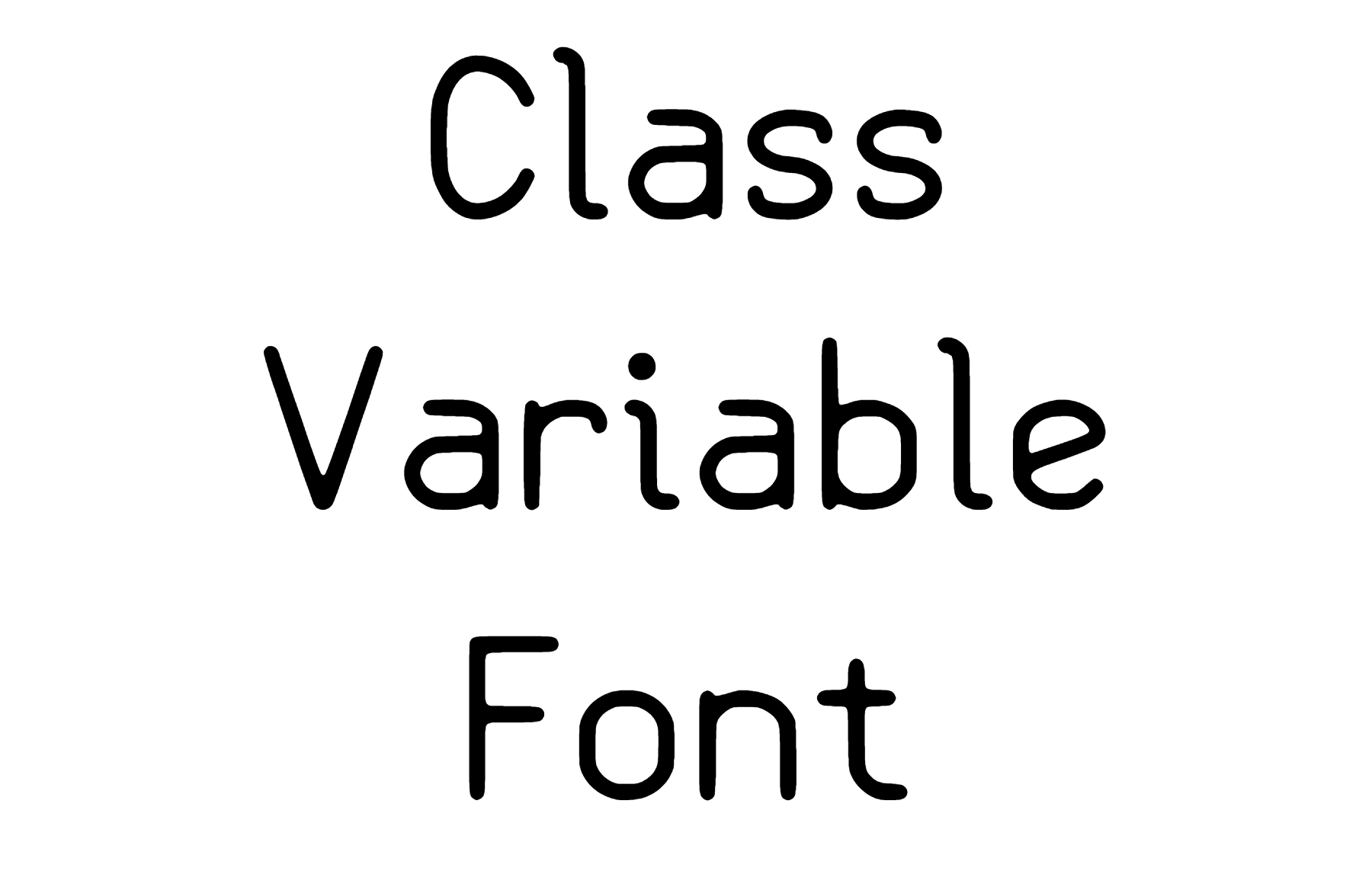
Class Variable
Class Variable is a handwritten font (2020). The letters have the small wobbles and personality of real handwriting, so your text feels warm instead of printed. The free download includes two styles, and you can try every one of them with your own text in the preview above.
What You Can Type With Class Variable
Class Variable covers the full alphabet in upper and lowercase, plus all ten numbers, so you can set names, dates and prices without switching fonts. Common punctuation such as &, !, ? and @ is included as well. It also has the accented letters you need for Spanish, French, German, Portuguese and Italian.
Where Class Variable Works Best
Think of Class Variable for greeting cards, journal pages and friendly social posts. The file has no kerning data, so in logos and big titles check pairs like AV, To and Wa and tighten the spacing by hand. Set it a bit larger than you would a normal text font. Handwriting styles lose their charm once they get too small to read comfortably. Because the family has more than one style, you can mix them in a single design for headings, subheadings and highlights.
Does Class Variable support accented letters?
Yes. Class Variable includes the accented letters needed for Spanish, French, German, Portuguese and Italian, so it works for more than just English.